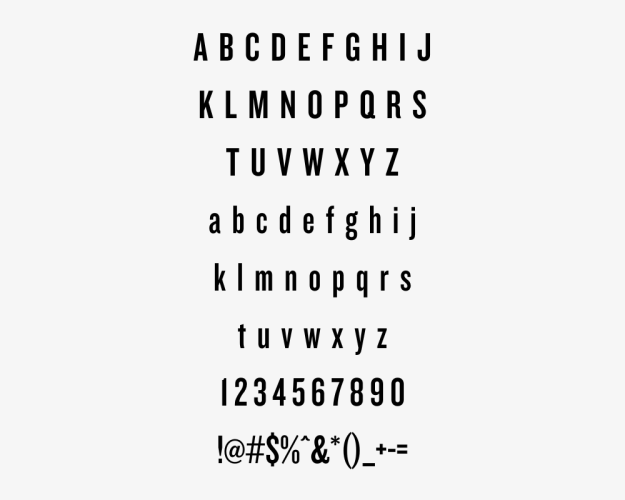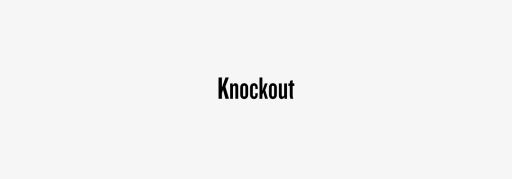
Knockout Font
Knockout is a bold sans serif font with 32 unique styles. Moreover, it brings classic American design to life. Jonathan Hoefler created this font in 1994. Additionally, The New York Times Magazine used it first.
This font offers nine widths to choose from. Furthermore, it works great for magazine headlines and posters. The narrow styles fit tight spaces well. Therefore, many designers love it for bold layouts.
You can pick from light to heavy weights. In addition, wide styles work well for logos and branding. Sports Illustrated chose this font for their new look. Consequently, it became very popular with editors.
The font is easy to read at any size. However, each style keeps its own personality. It includes all the letters and symbols you need. As a result, you get great looks for any project.
Knockout Font stays legible at small sizes, which makes it a strong choice for navigation, buttons and dashboards in web design and app interfaces.
Clean sans serifs like Knockout Font are the default language of SaaS, fintech and product branding.